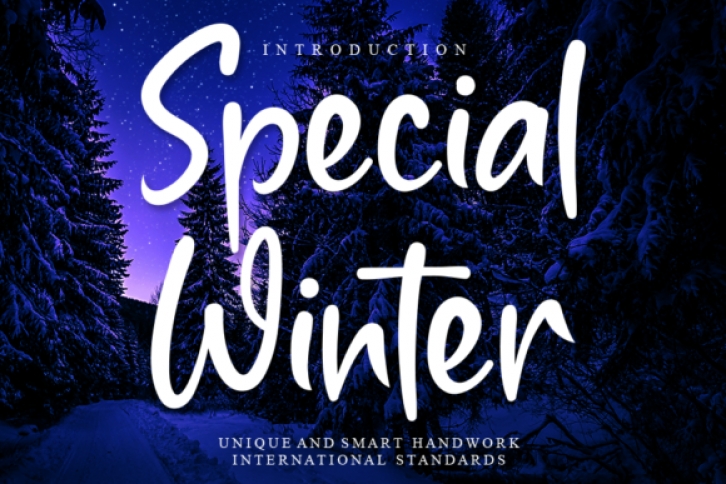
Special Winter is a sweet and cursive handwritten font. This gentle font will look gorgeous on a variety of design ideas. It will add a joyful and romantic touch to each of your projects!